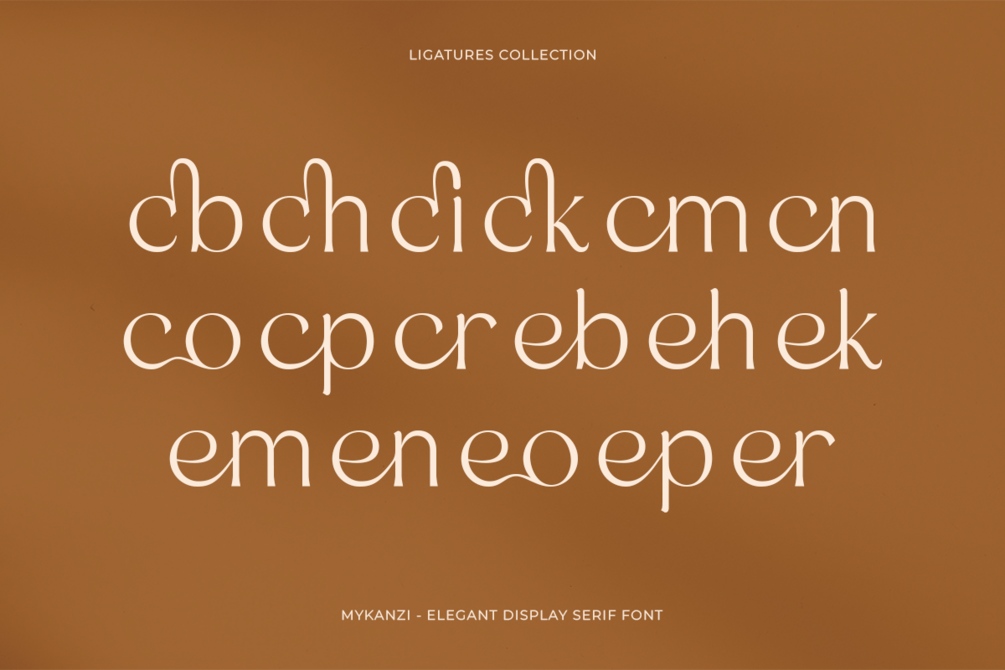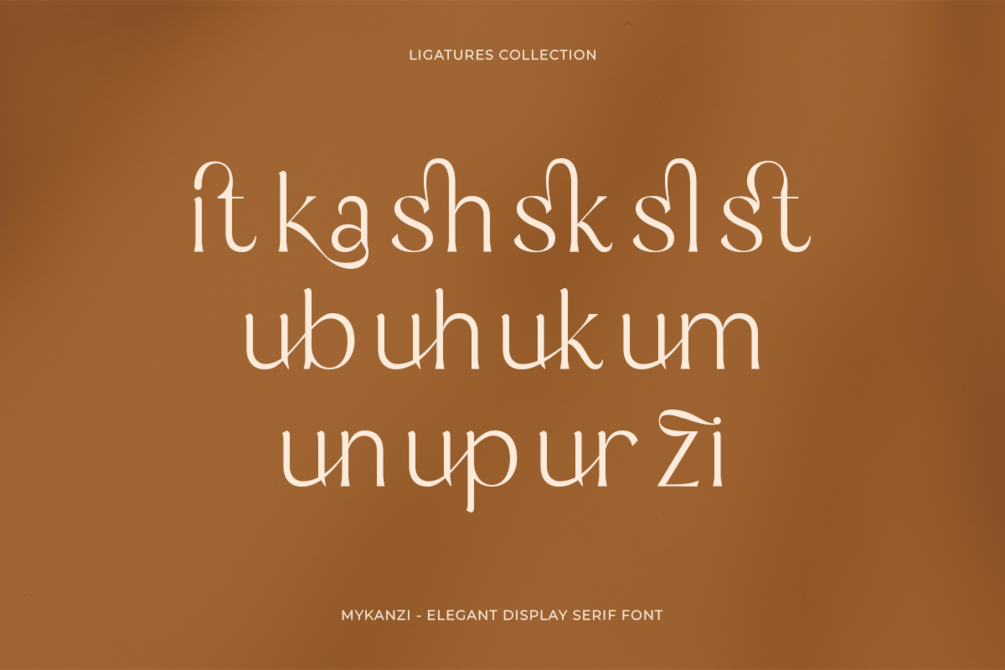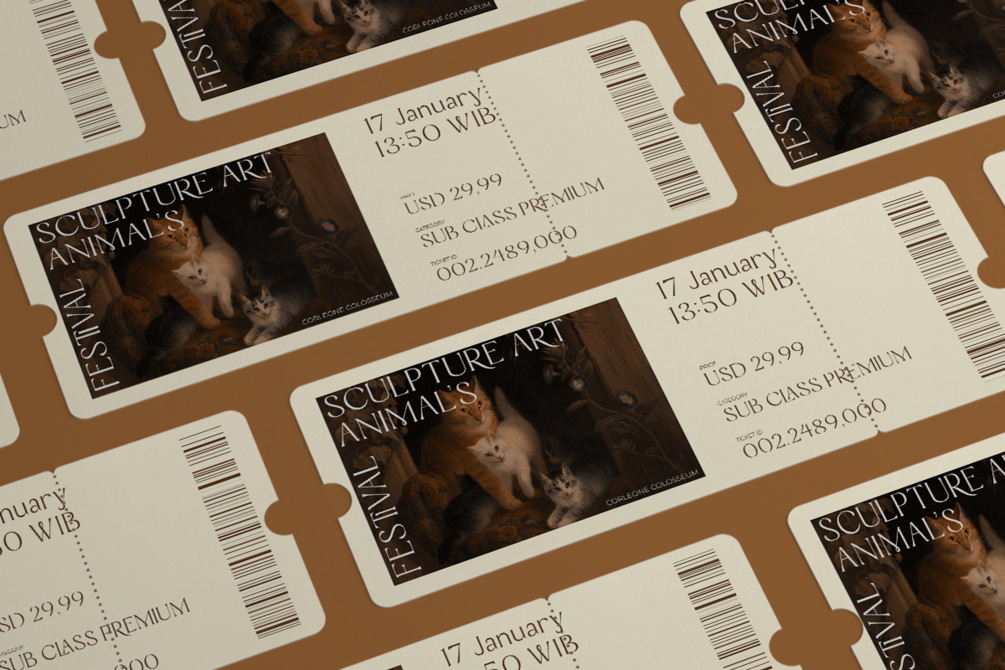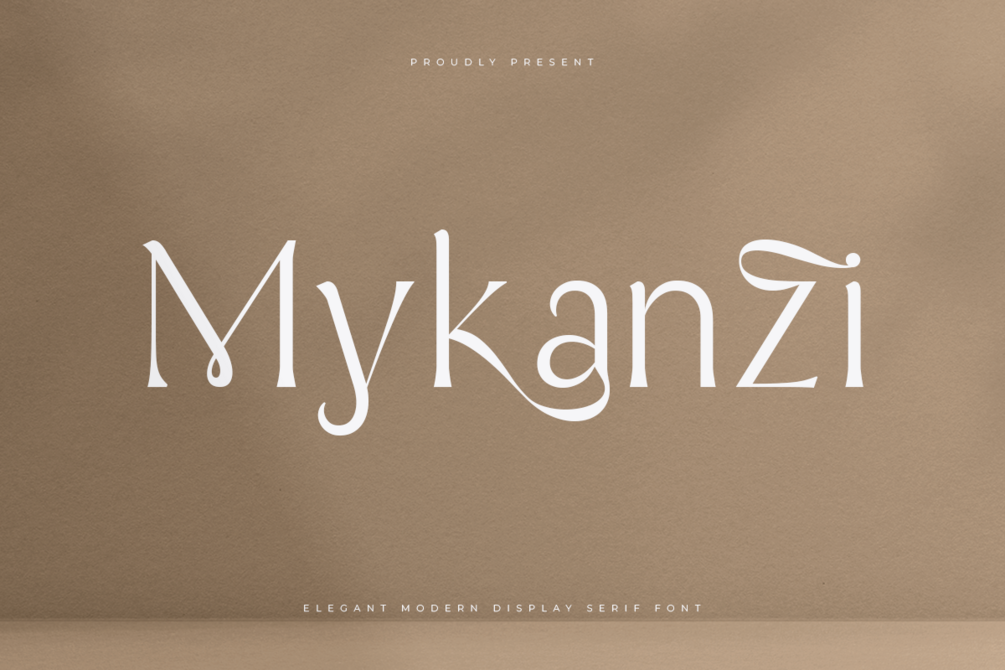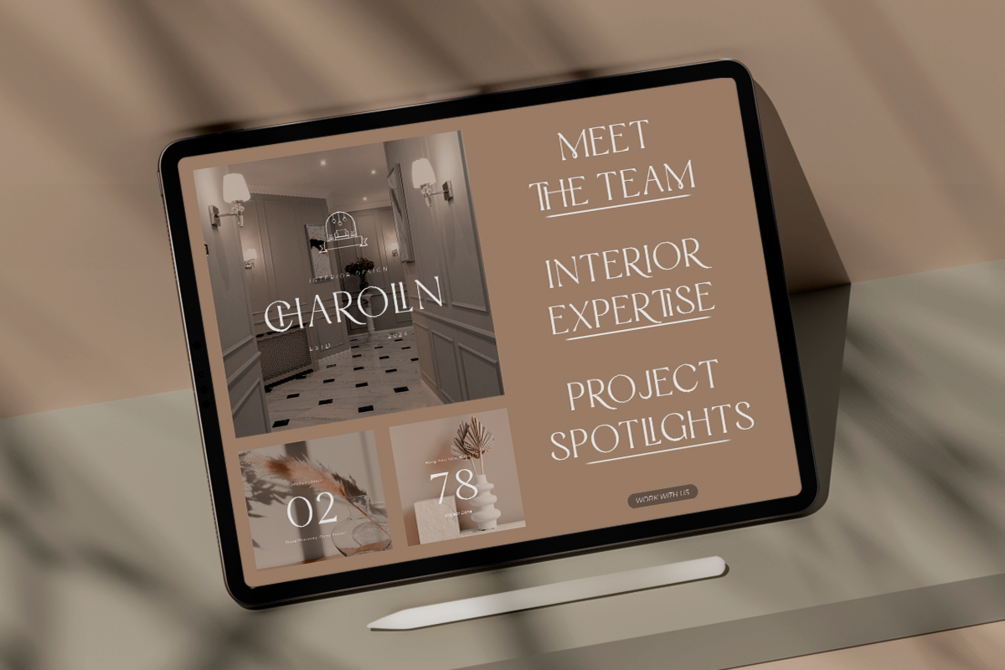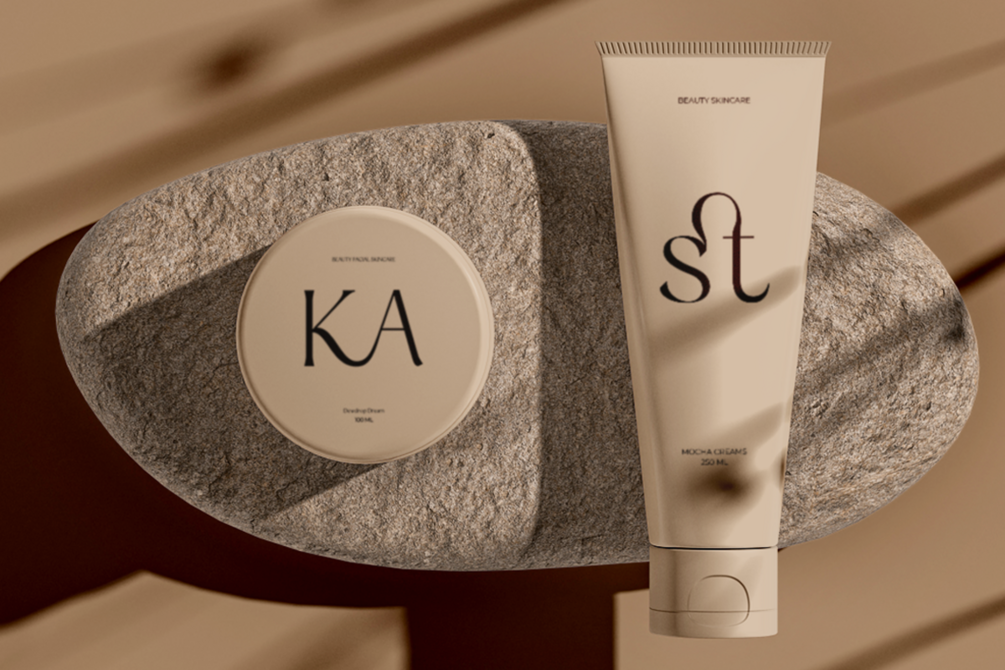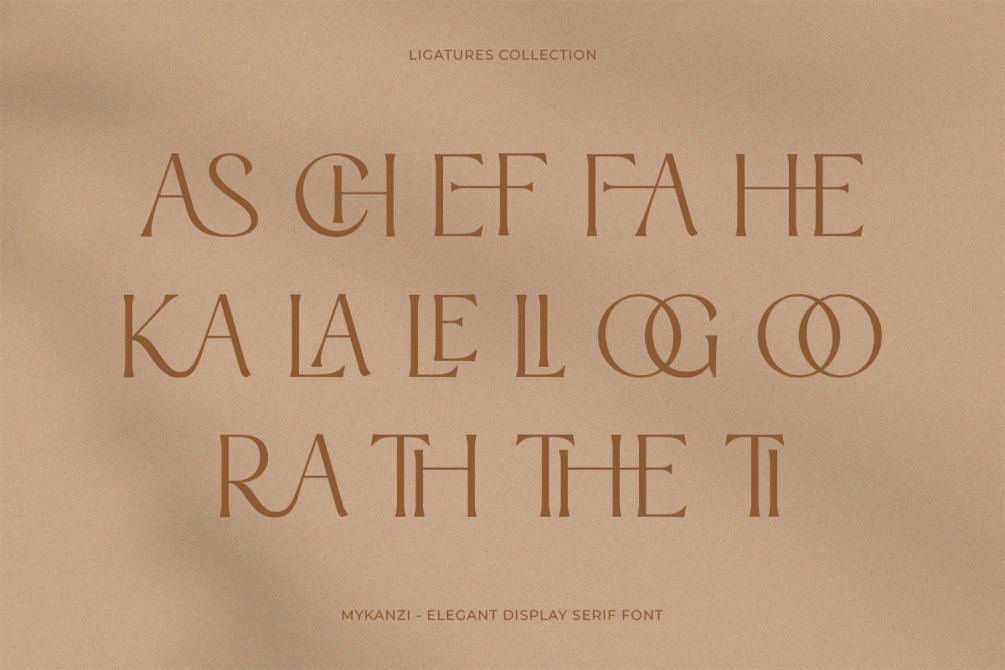
Mykazin - Elegant Display Modern Serif Font
Introducing
Mykanzi - Elegant Display Serif Font embodies sophistication and grace, tailored for versatile applications such as branding, logo design, film covers, headline titles, and various other design endeavors. Crafted with fluid, elegant curves, this font exudes a sense of refinement and flow, adding a touch of timeless charm to any project it graces.
1.Uppercase, Lowercase, Numerals and Punctuations
2.46 Elegant Ligatures Included
Unveil Timeless Elegance, Mykanzi - Where Sophistication Meets Serif.